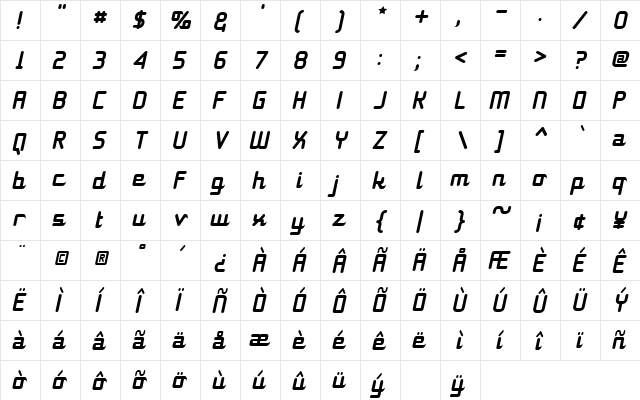
11S01 Black Tuesday Italic Regular
Design Context for 11S01 Black Tuesday Italic Typeface
11S01 Black Tuesday Italic takes a measured approach to typography — its balanced proportions and neutral character make it a reliable workhorse for both digital and print work. Its italic angle brings a sense of urgency and motion to the letterforms.